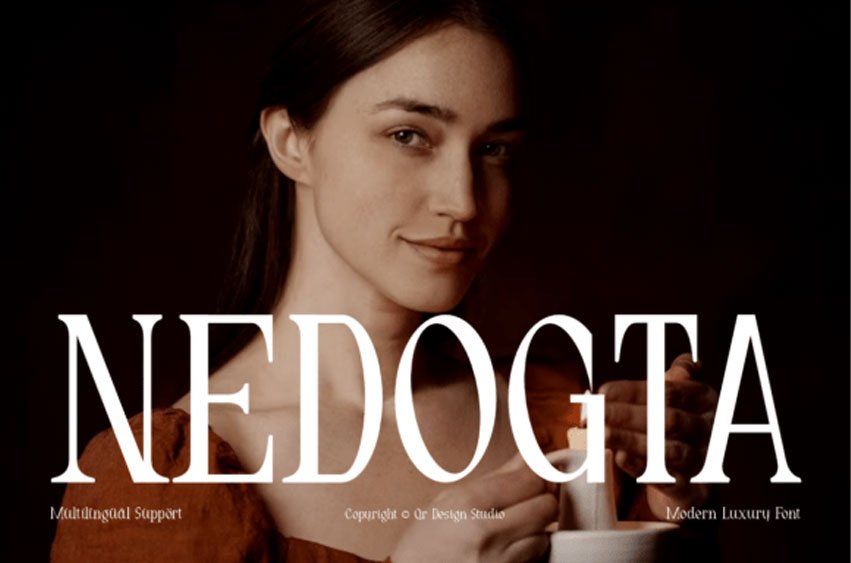
Nedogta Font Step into a realm of fine art, high fashion, and timeless sophistication with Nedogta, a modern luxury serif font. Balancing classical European editorial structure with contemporary minimalism, this elegant display typeface stands out with its towering, condensed vertical proportions and crisp Roman-style architecture. Its refined signature look relies on an extreme visual contrast between thick, authoritative stems and razor-thin horizontal bars, accented by sharp, delicate triangular serifs that instantly evoke an air of prestige.
Equipped with comprehensive multilingual support, Nedogta is engineered with tight geometric tracks and high optical clarity, ensuring your titles remain beautifully scannable against complex background layers. Placed over candlelit portraiture, fine fabrics, or minimalist layout fields, it functions as an exceptional centerpiece for luxury haute couture branding, boutique cosmetic labels, fine jewelry identity design, premium wine and spirit packaging, high-end hotel signage, and high-impact fashion lookbook headers.